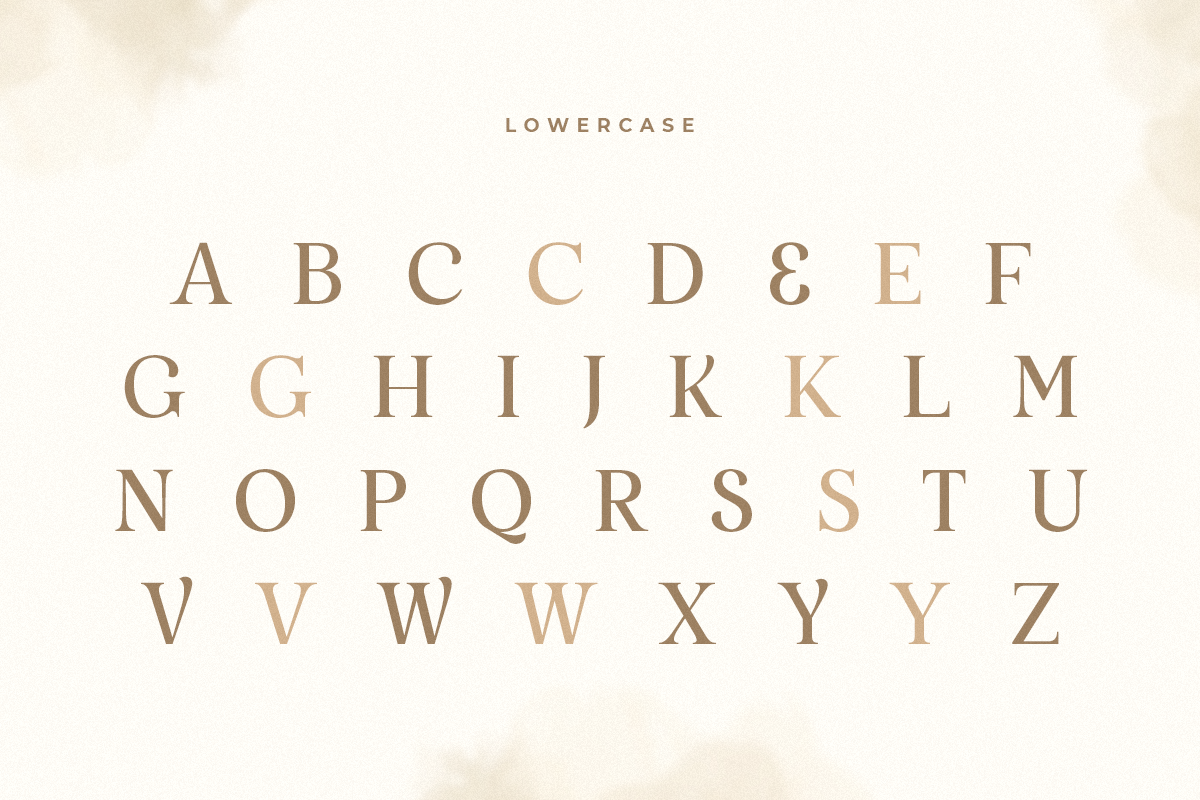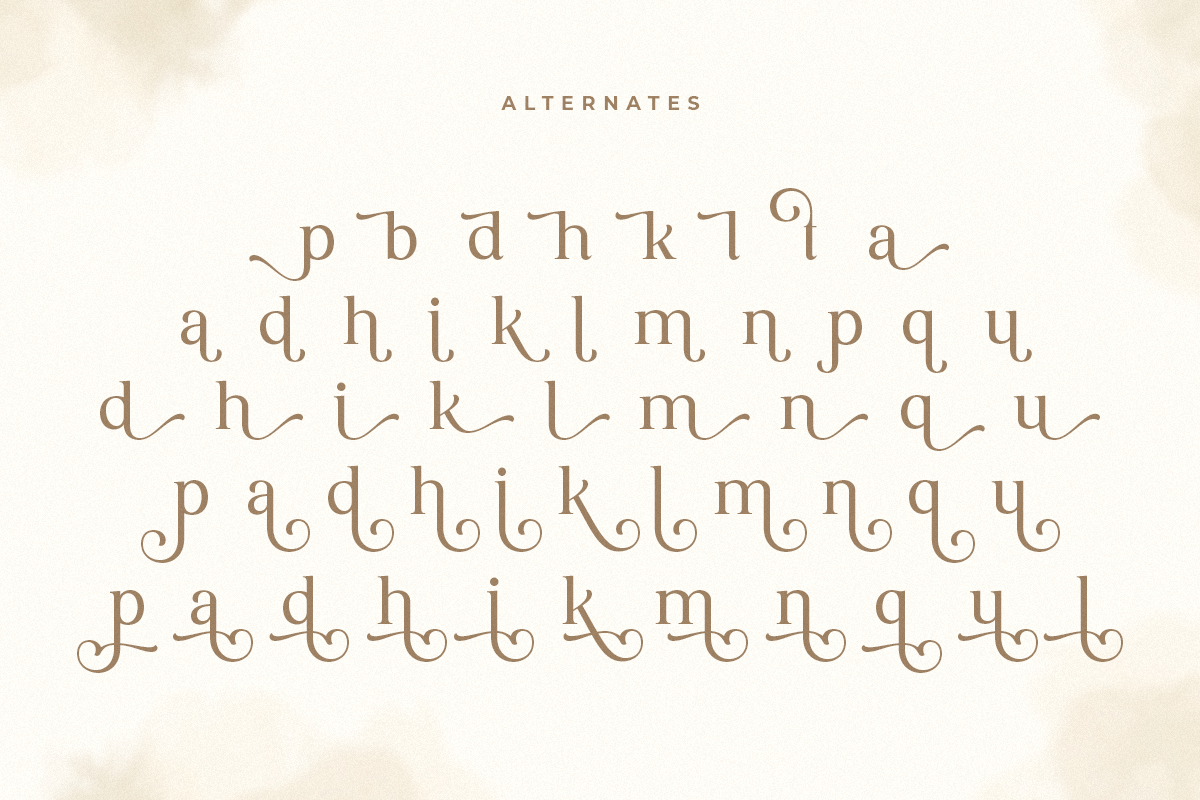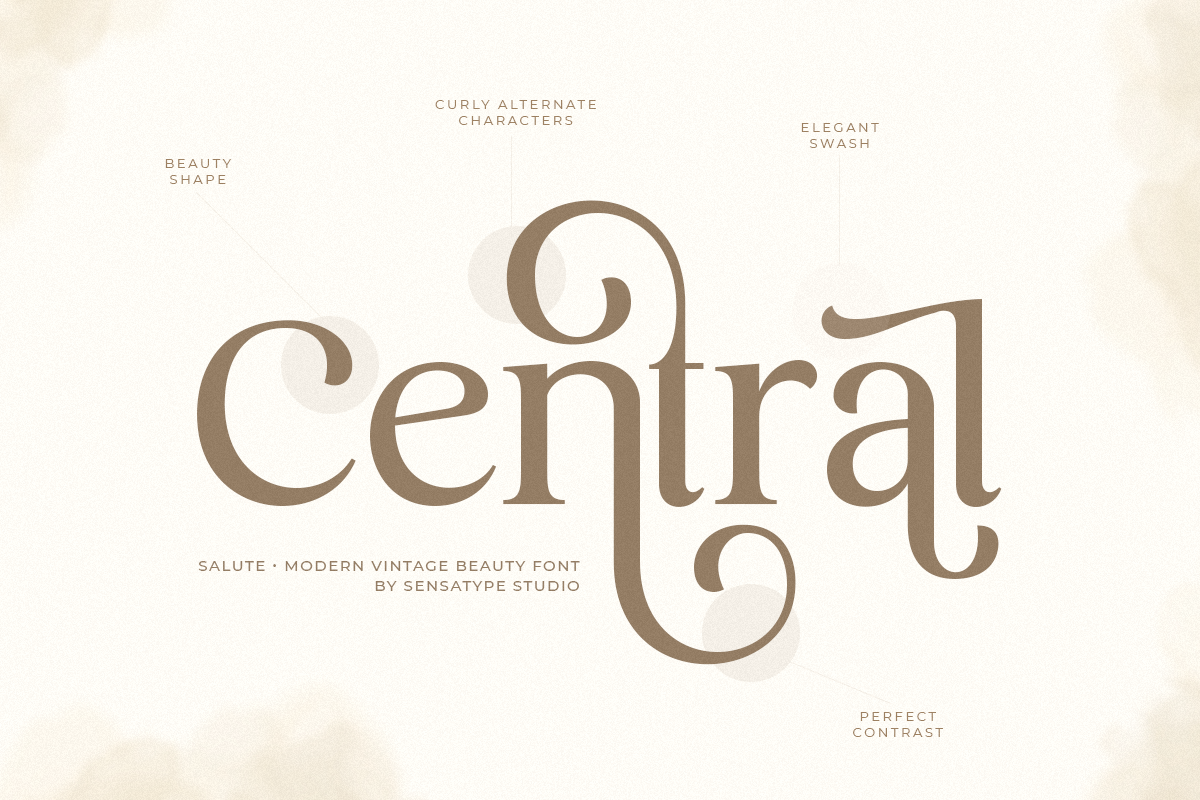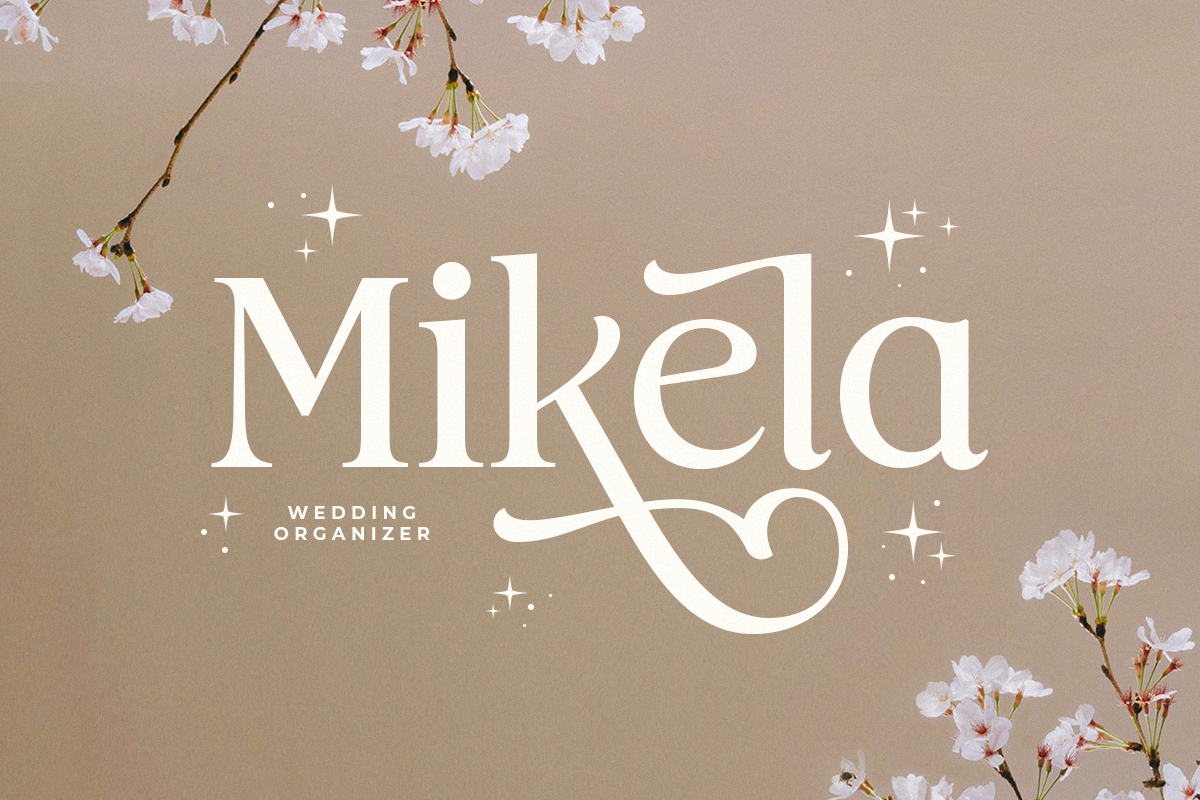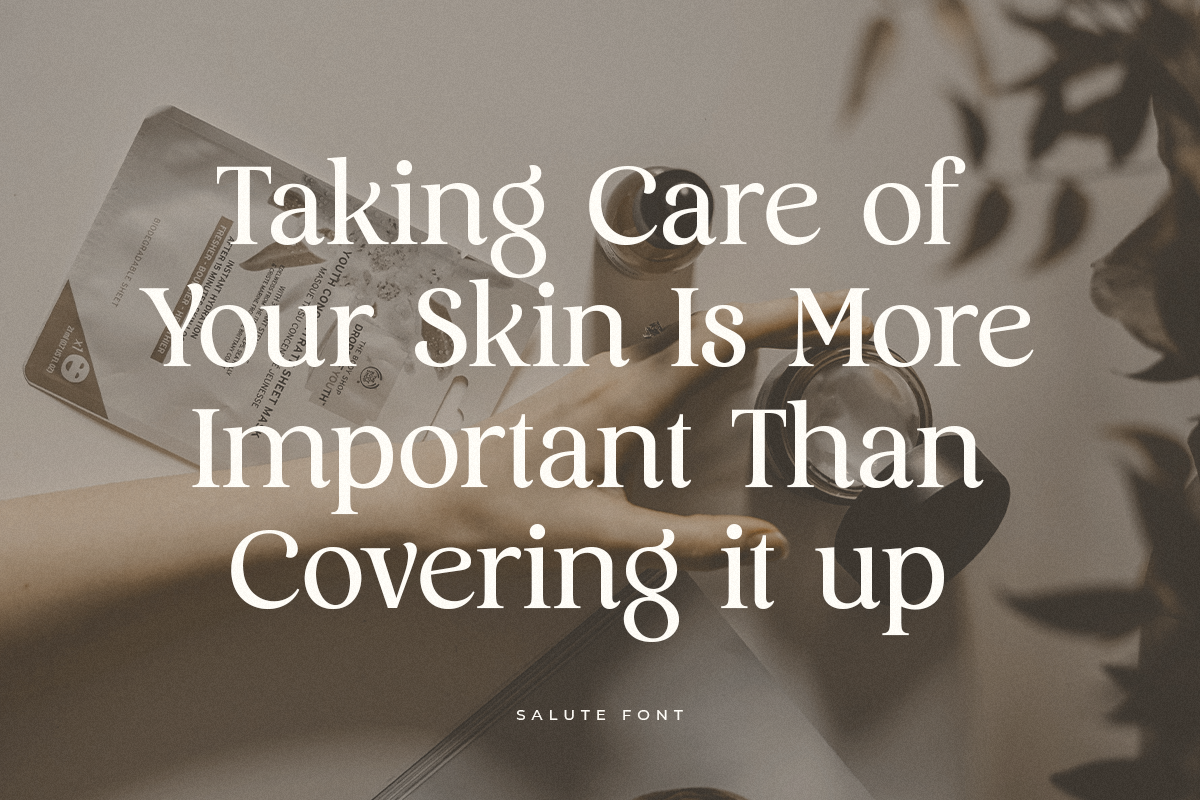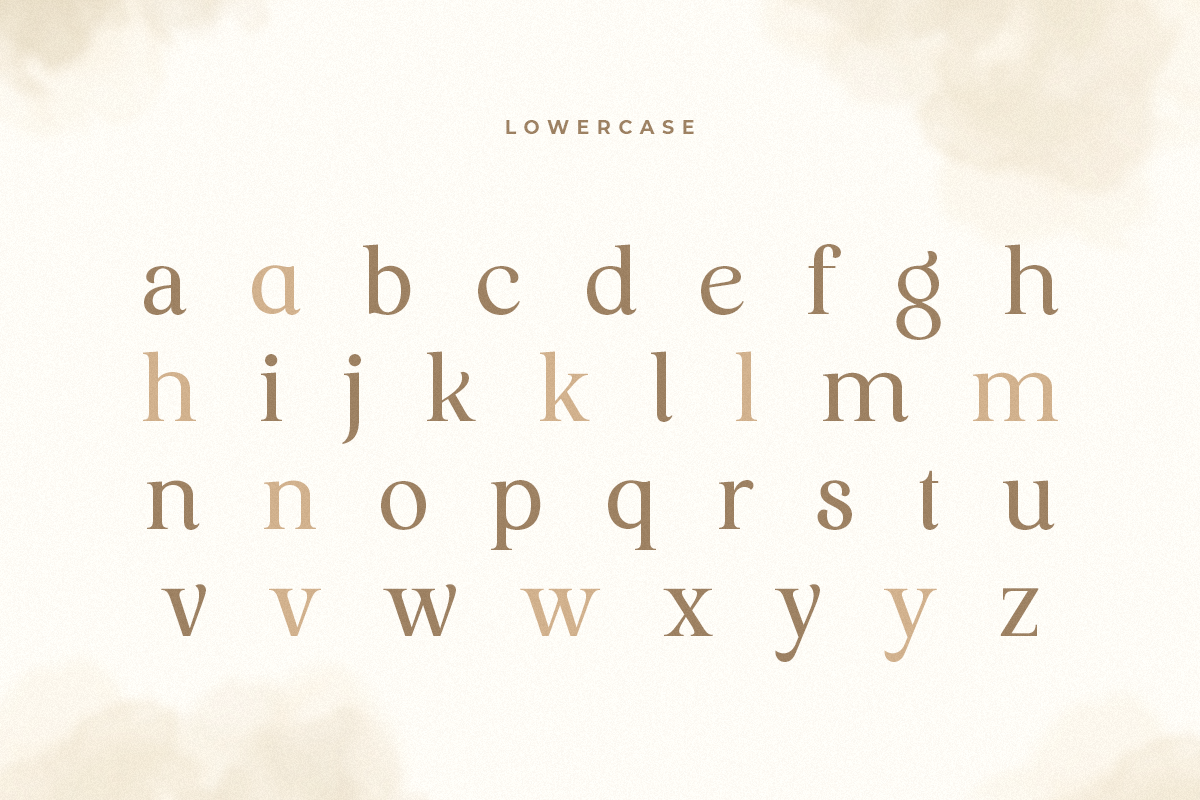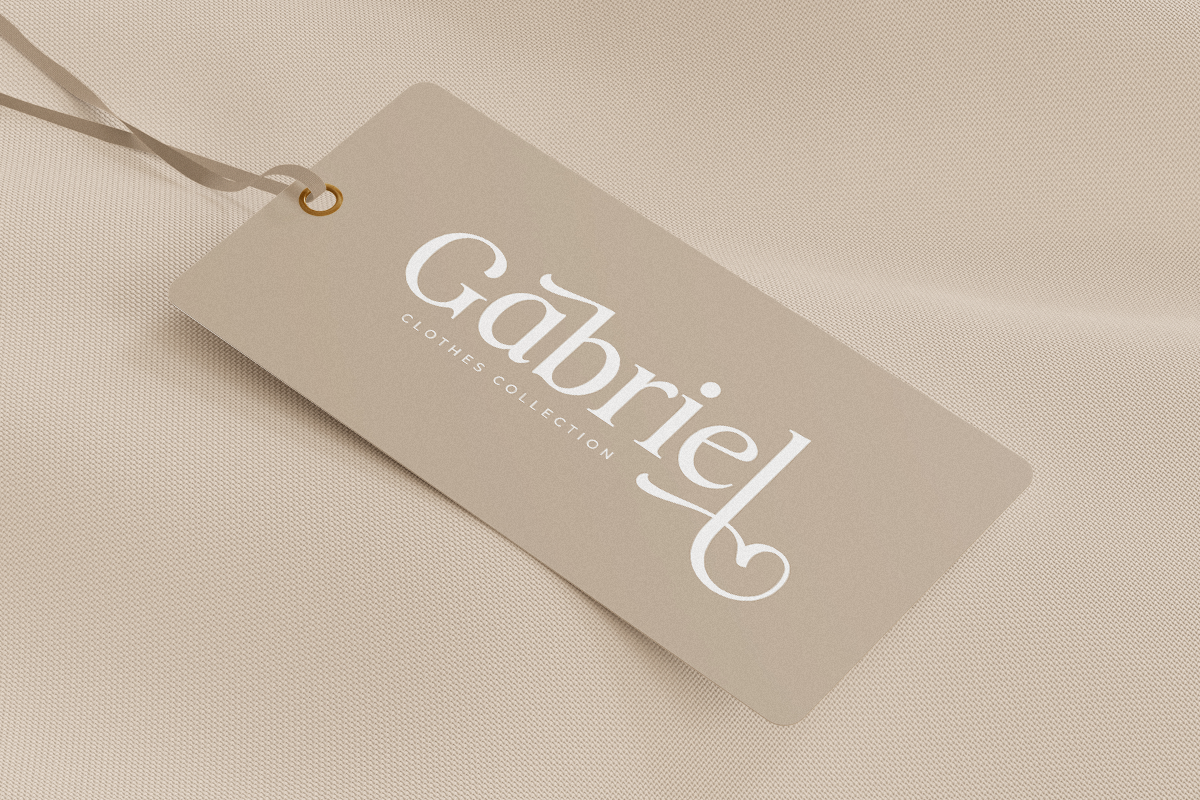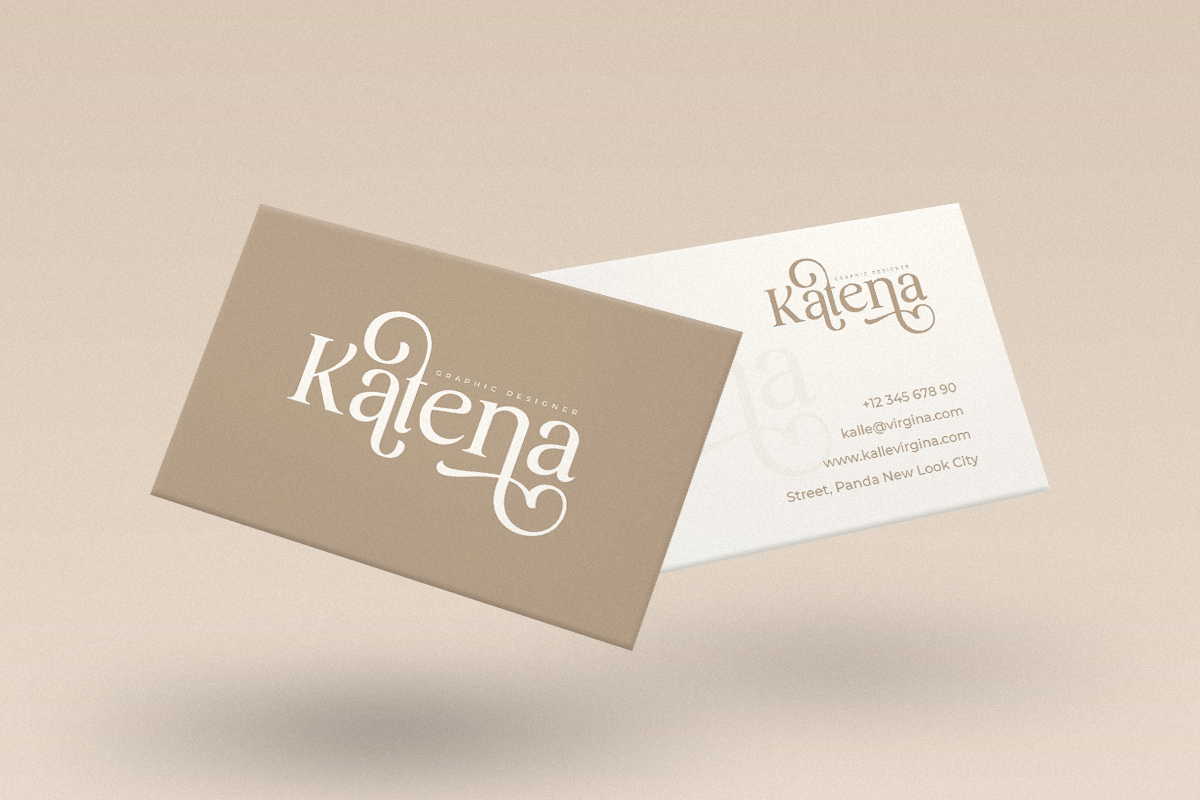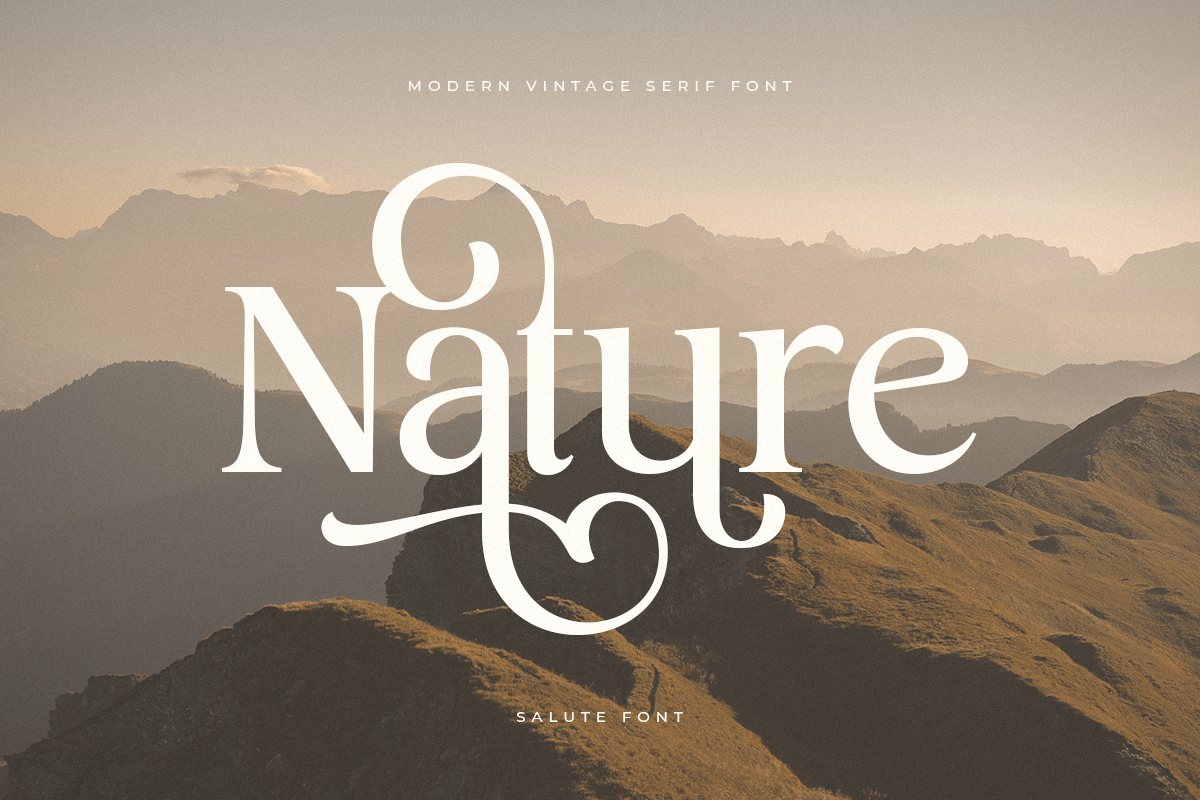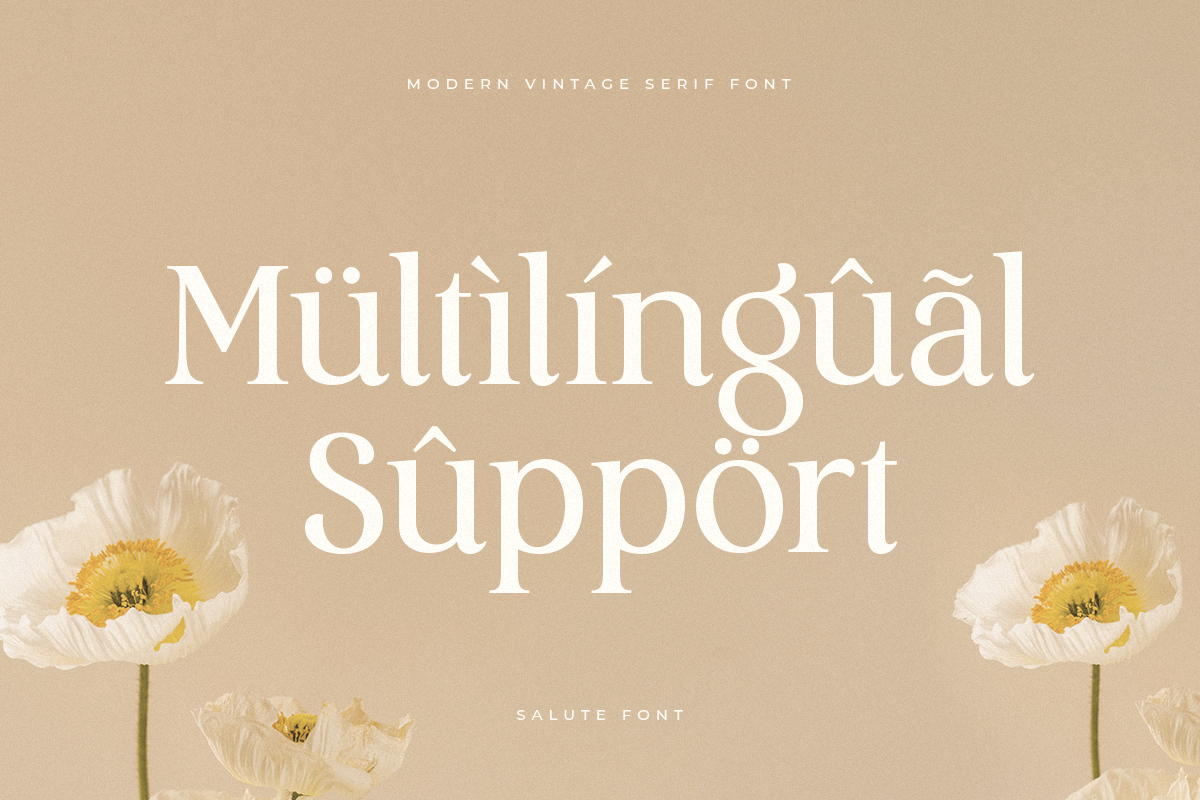
Salute is a Modern Vintage Beauty Font
A new font that we created special for branding needs, with unique characters and awesome alternative characters are ready to add value of your brand. It so nice to leverage designer or product owner that need solutions to make their design look more beauty and modern. And specially for Salute font, We prepared any swash and any alternate characters to help you create unlimited variations for your creative needs.
Salute Modern Vintage Beauty font ready with:
- Any options to get creative variations (combination of Alternate and Swash)
- Ready with Lowercase and Uppercase characters